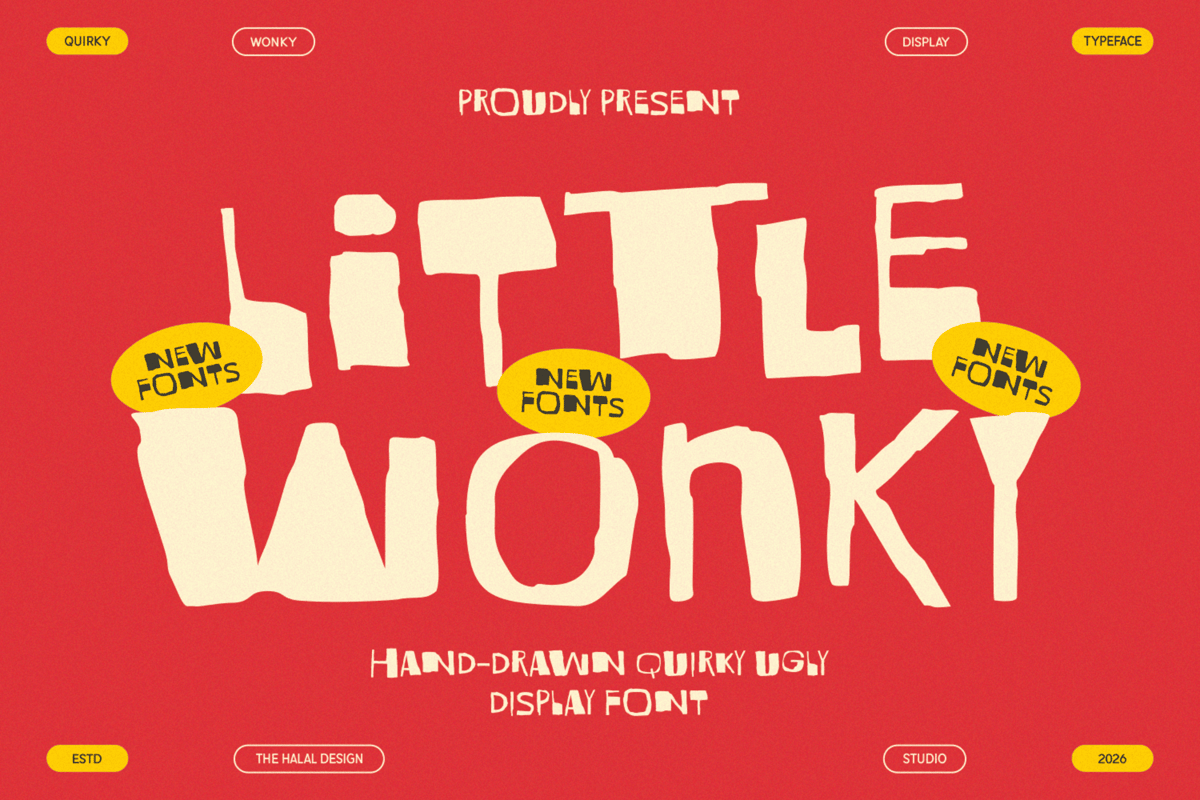
Little Wonky - Hand-Drawn Quirky Display Font
Delightfully imperfect and bursting with personality — Little Wonky is the hand-drawn display font your playful designs have been waiting for.
Little Wonky is a uniquely unpolished display typeface built to deliver a fun, authentic, and spontaneous feel across a wide range of creative projects. Its irregular letterforms, quirky shapes, and charmingly wonky details give every design an energetic, cheerful personality that stands out instantly.
This typeface is ideal for:
- Kids' designs and children's branding
- Posters and packaging
- Stickers and labels
- Classroom and educational materials
- Social media graphics
- Playful and expressive brand identities
With its authentically handmade look and multilingual support, Little Wonky gives you the typographic flexibility to create lively, memorable designs with ease — in both print and digital formats.